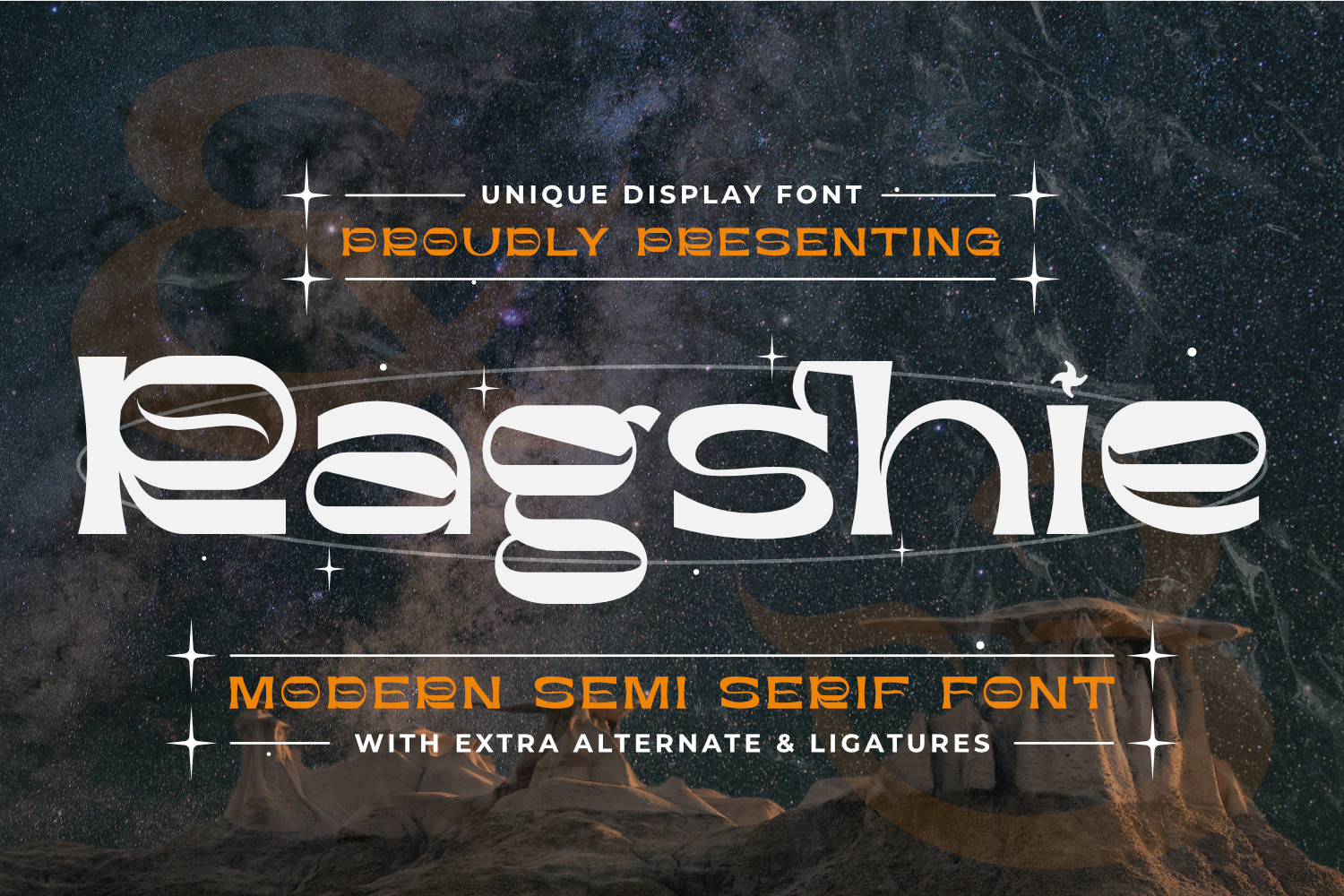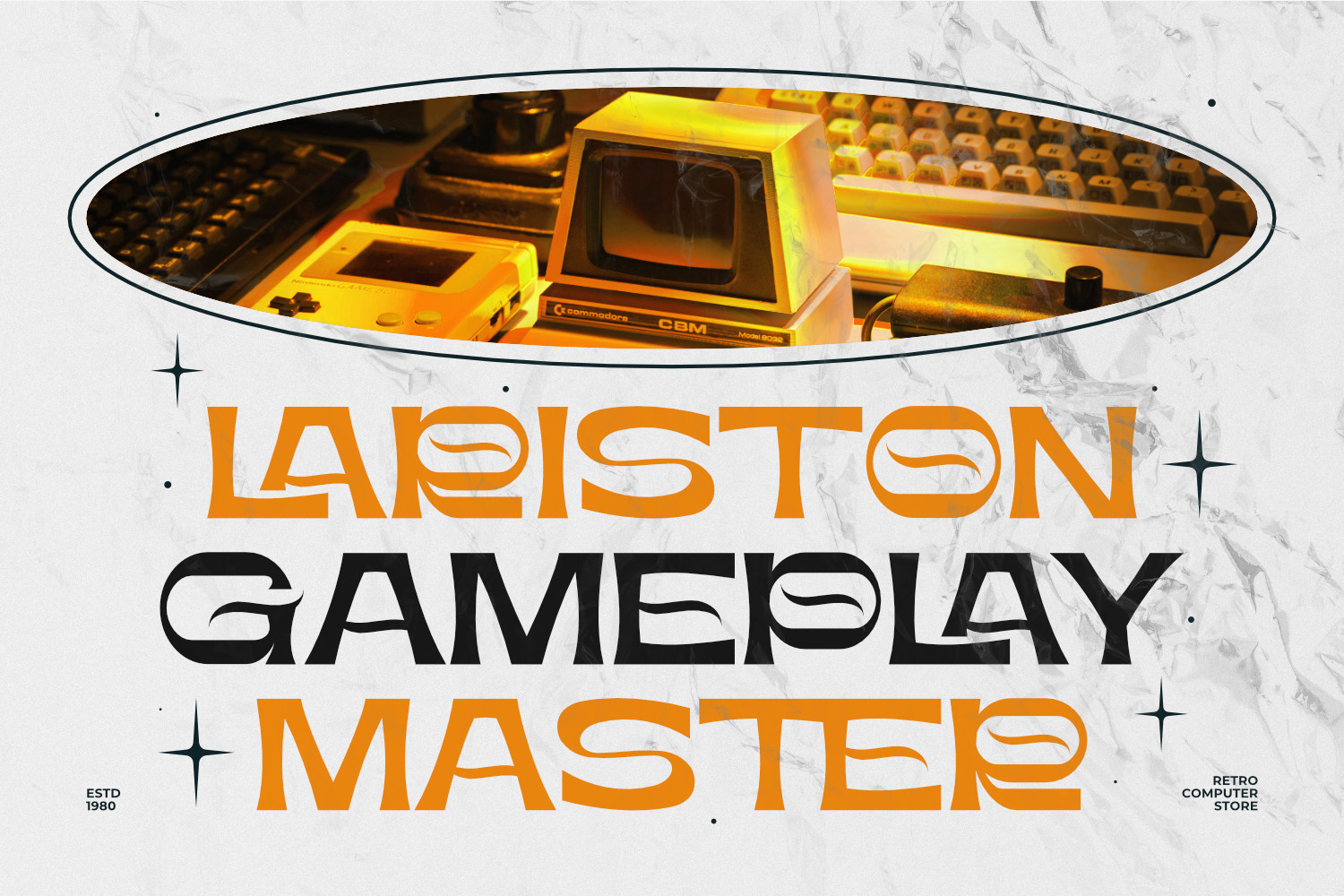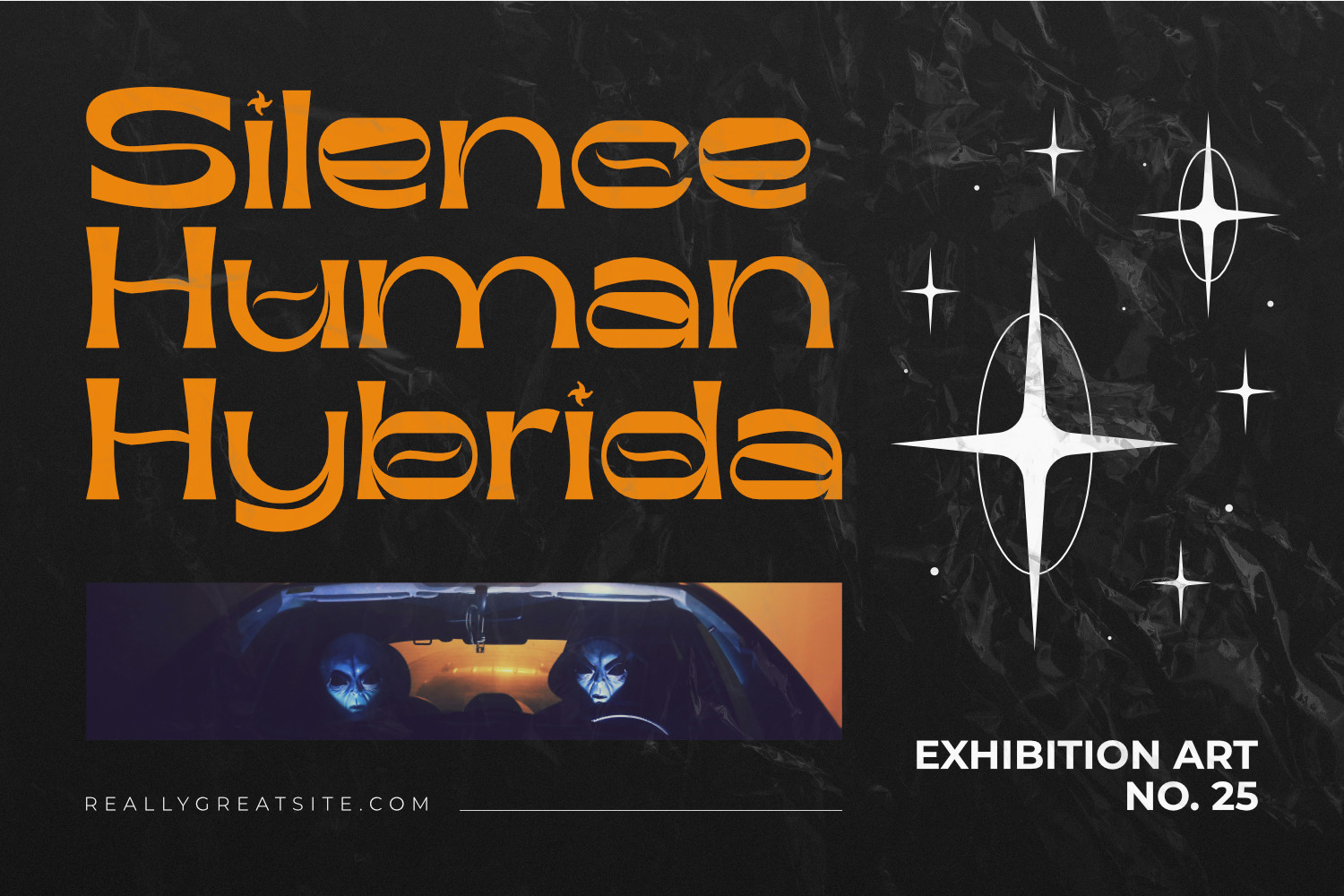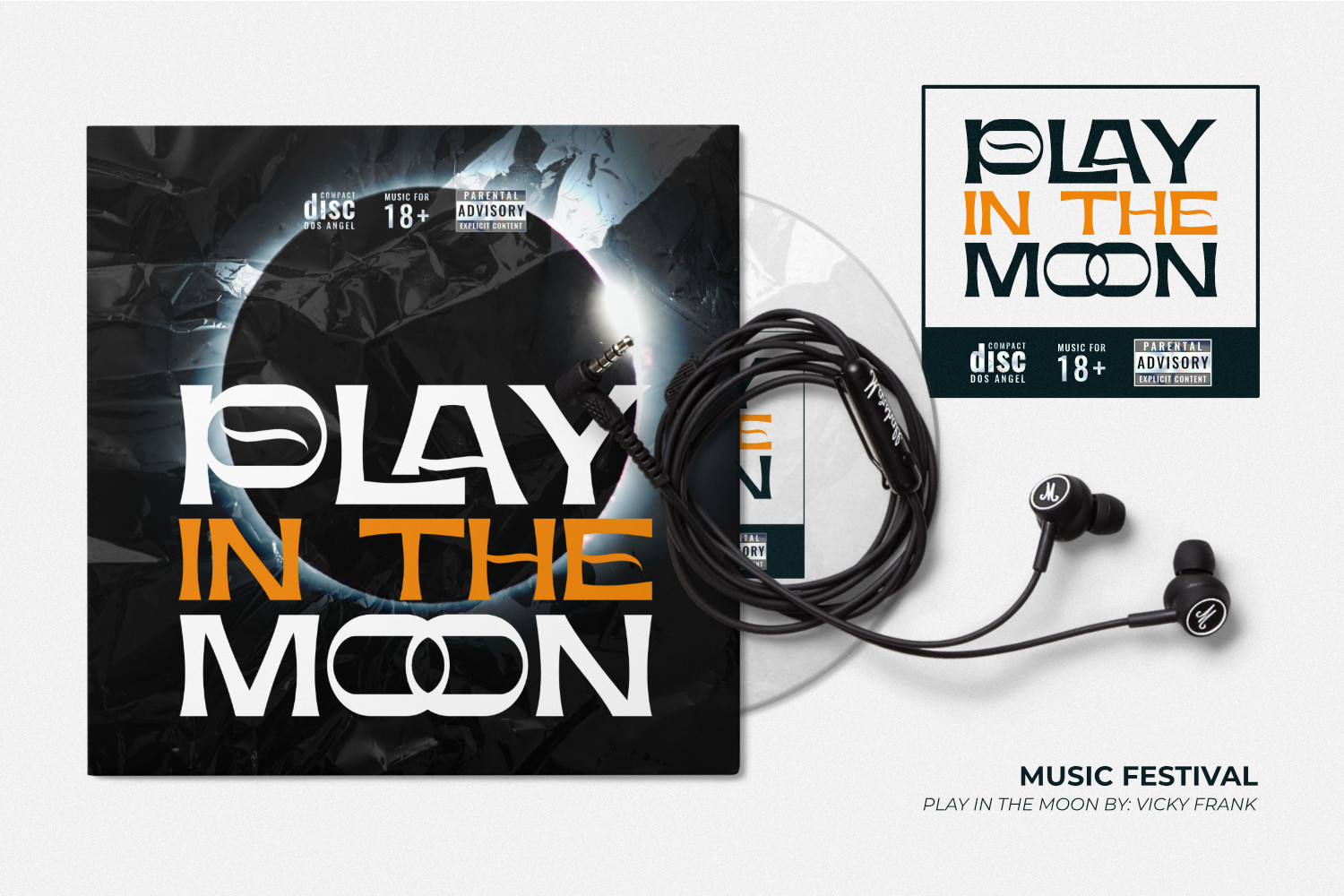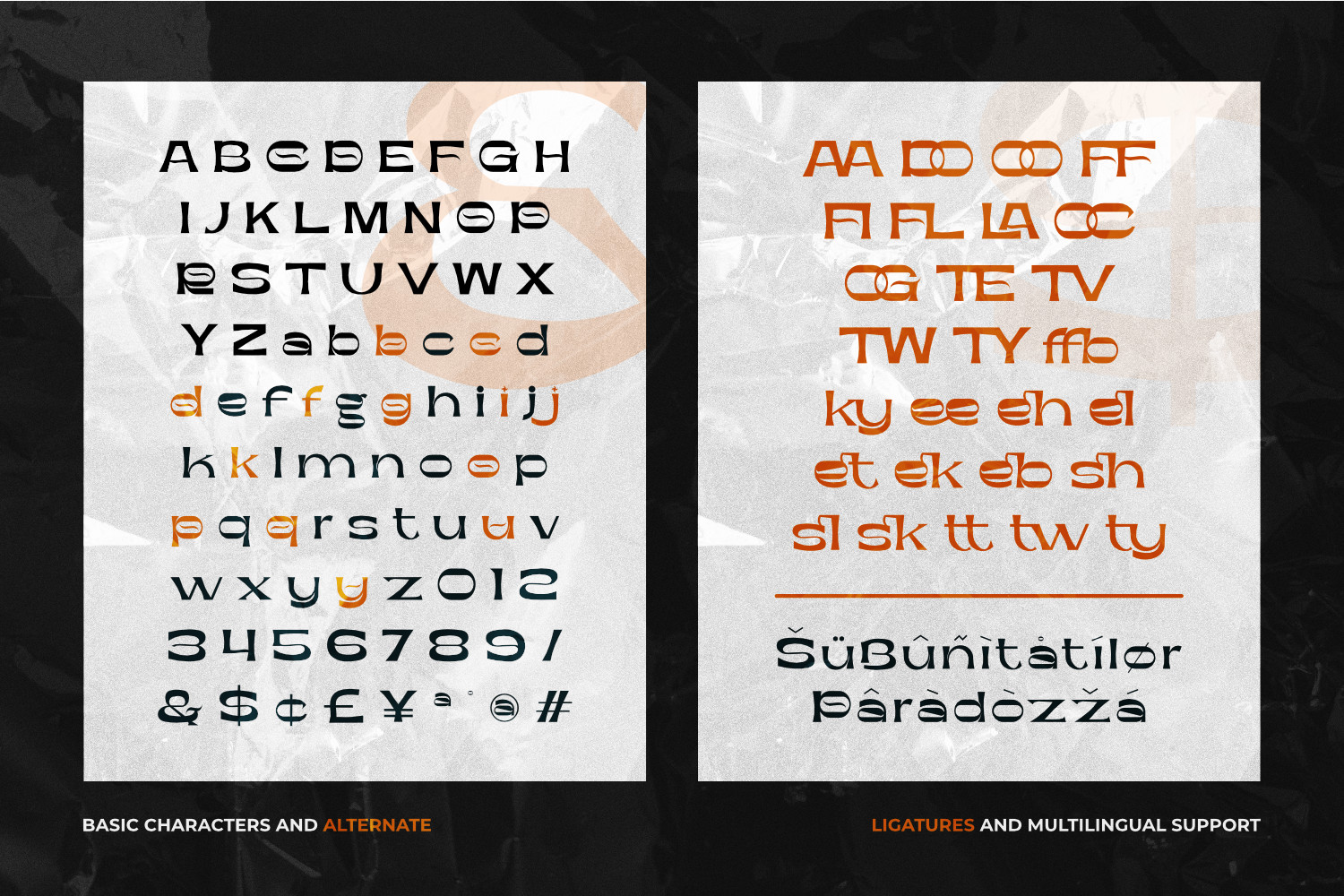
Ragshie is a futuristic semi-serif display font that captures attention with its experimental curves and bold stylization. Designed with a distinctive fusion of retro-futuristic energy and sci-fi aesthetics, this typeface offers strong versatility through its sharp forms and extended legibility. The sleek, geometric letterforms are complemented by alternate characters and ligatures that add a dynamic rhythm to the composition, perfect for tech branding, music posters, or editorial headlines.
Whether used in bold uppercase titles or stylized combinations, Ragshie’s unique energy makes it an excellent choice for projects that aim to stand out. With multilingual support and a wealth of stylistic alternatives, this font is tailored for modern creators looking to bring expressive, space-age vibes to their visual identity.